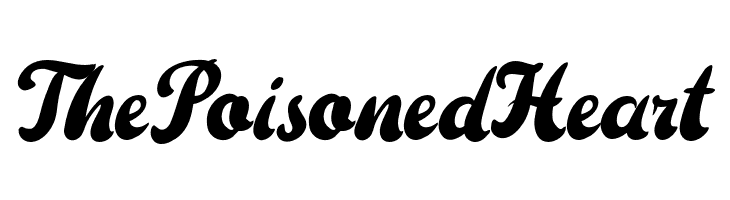
A sophisticated and fluid script font with elegant, flowing cursive strokes.
A bold, expressive script font with flowing, connected characters.
An elegant, flowing script font with a sophisticated, handwritten style.
A bold, flowing script font with elegant, cursive letterforms.